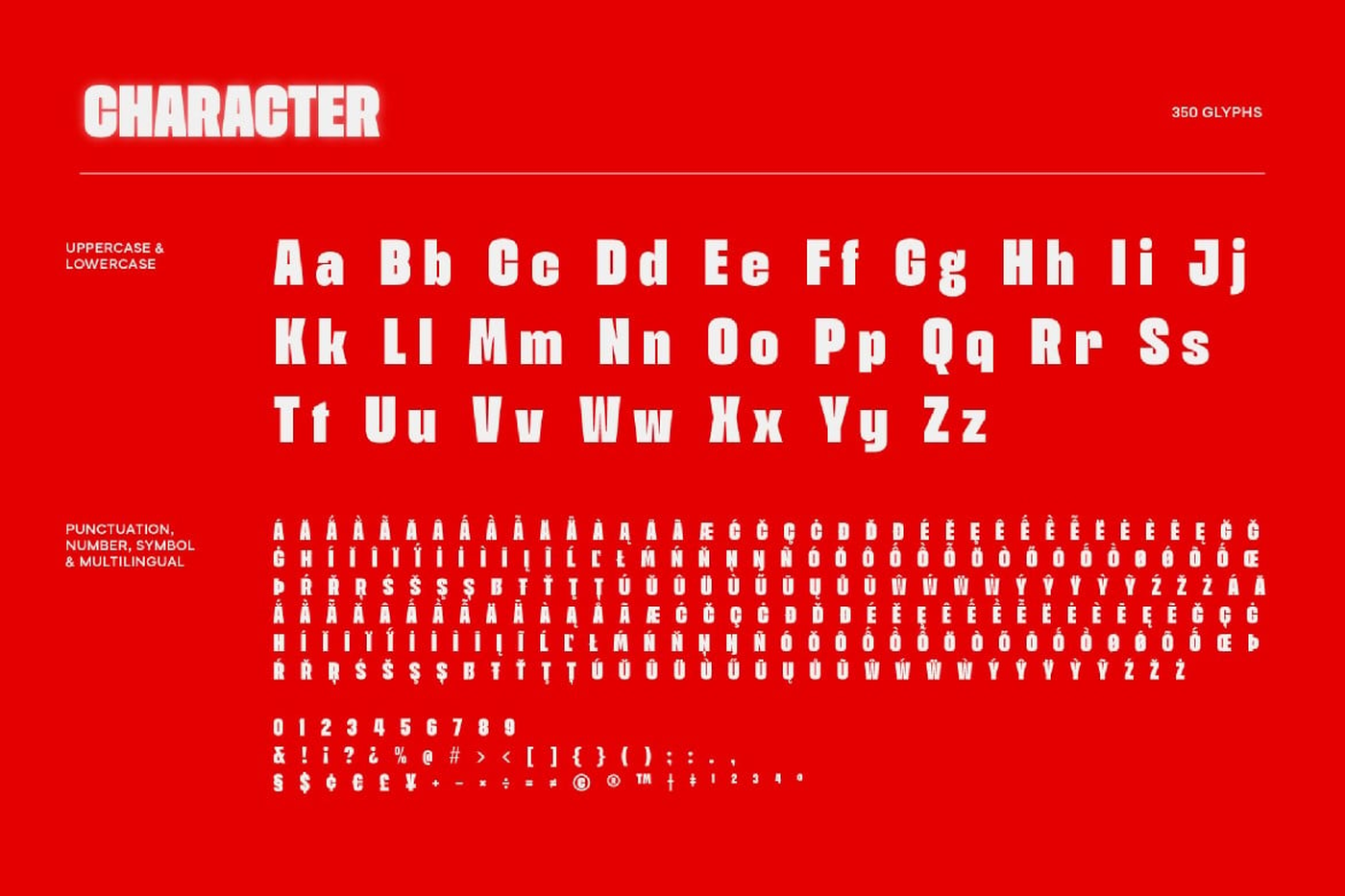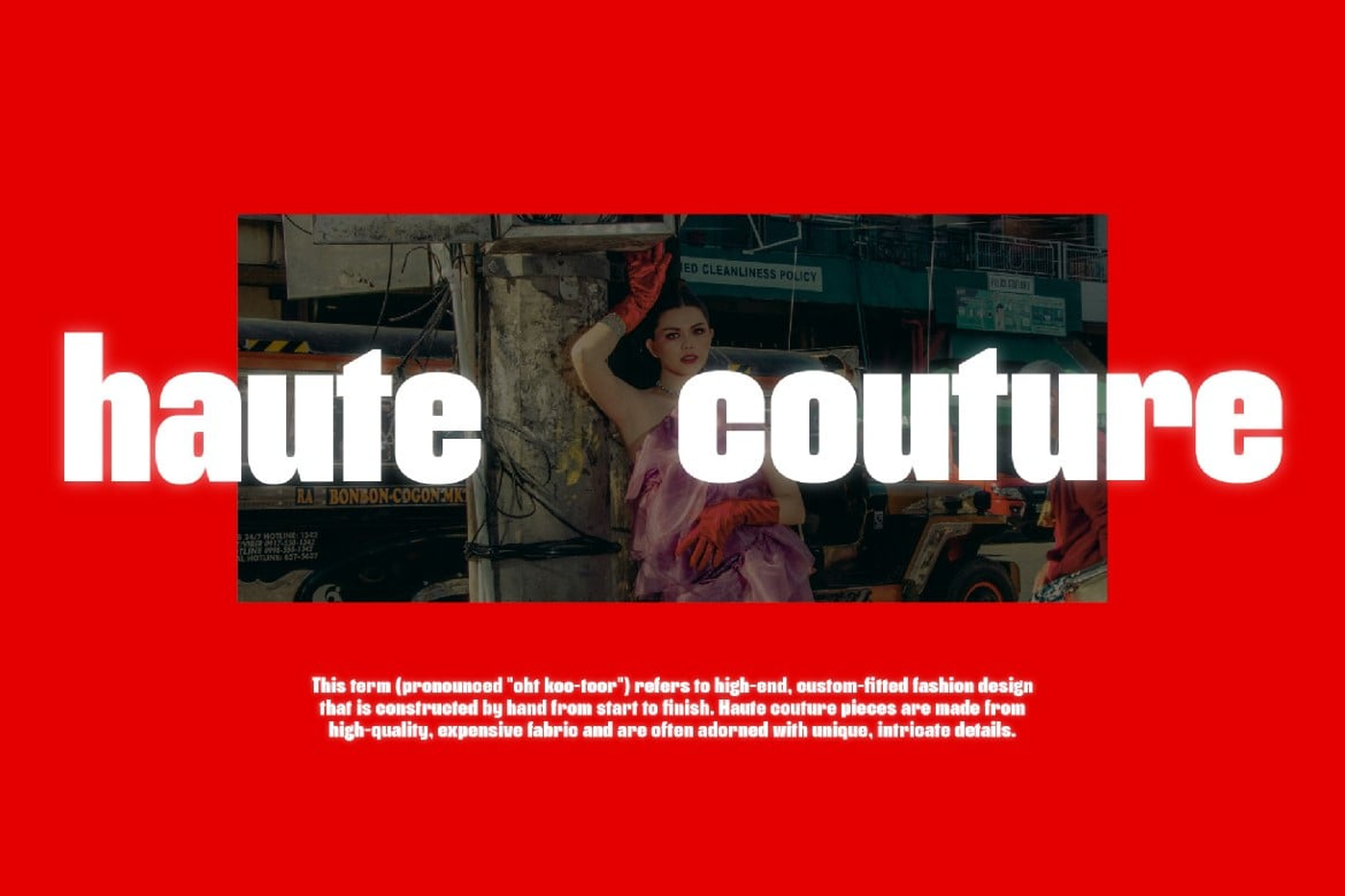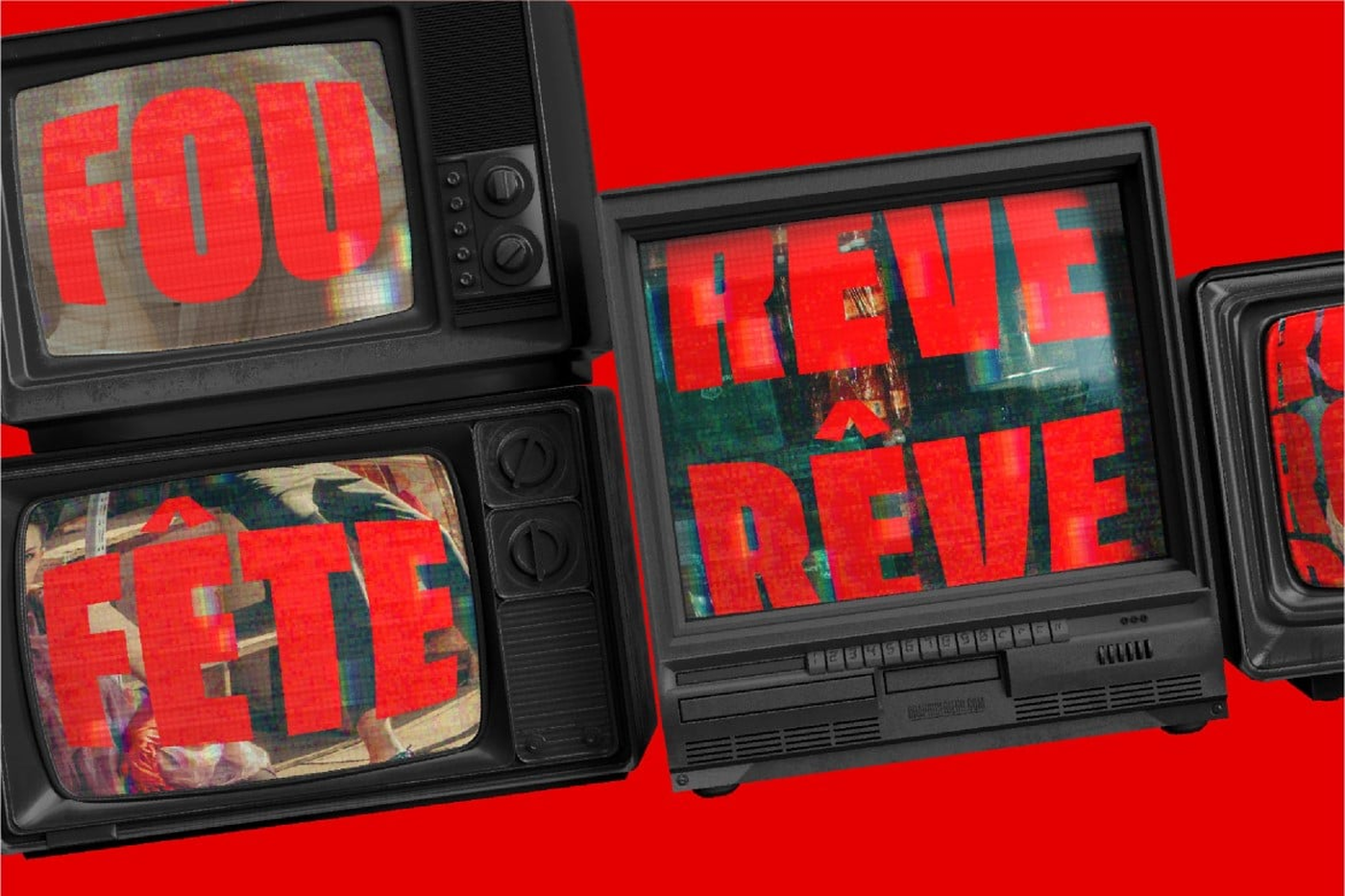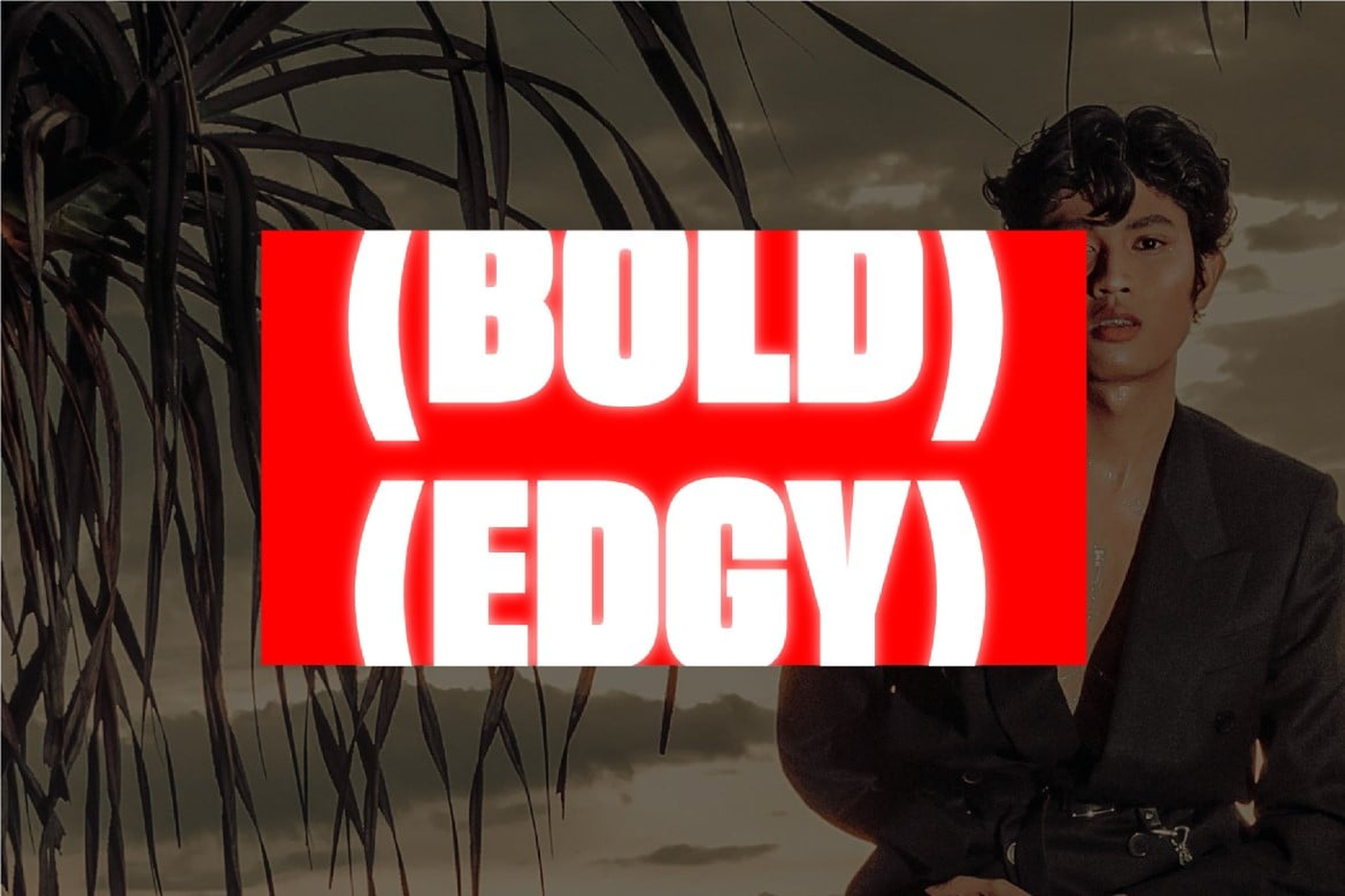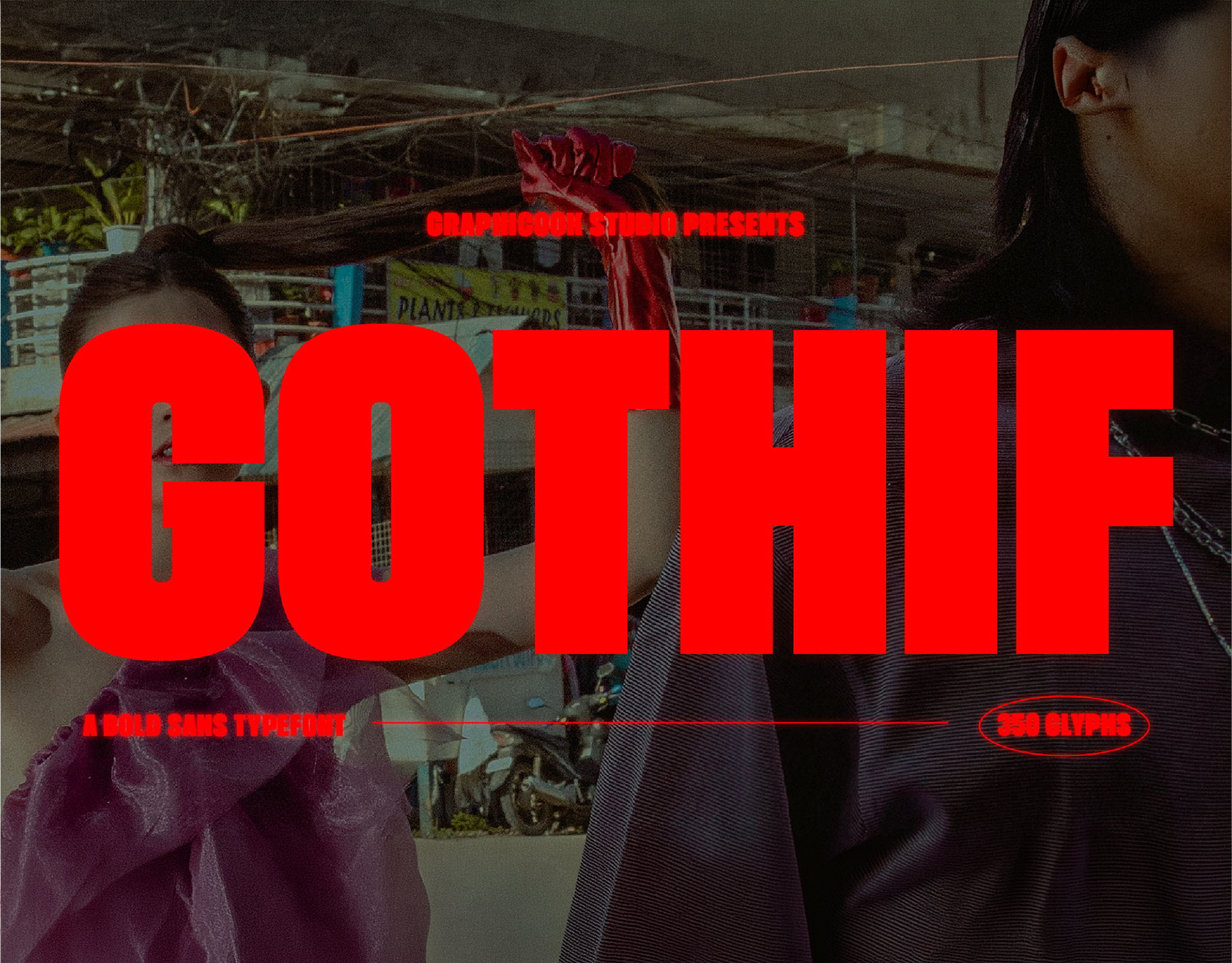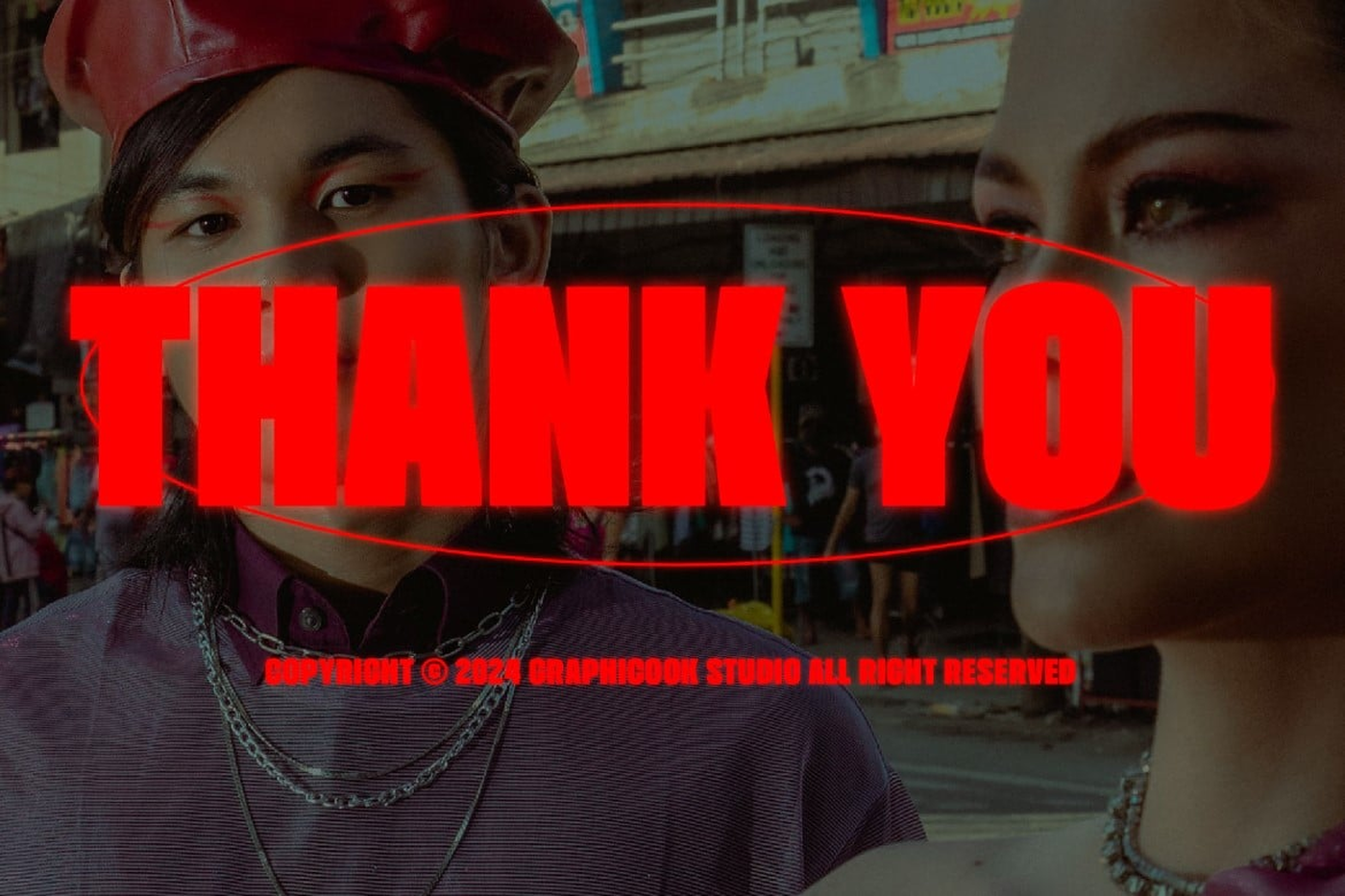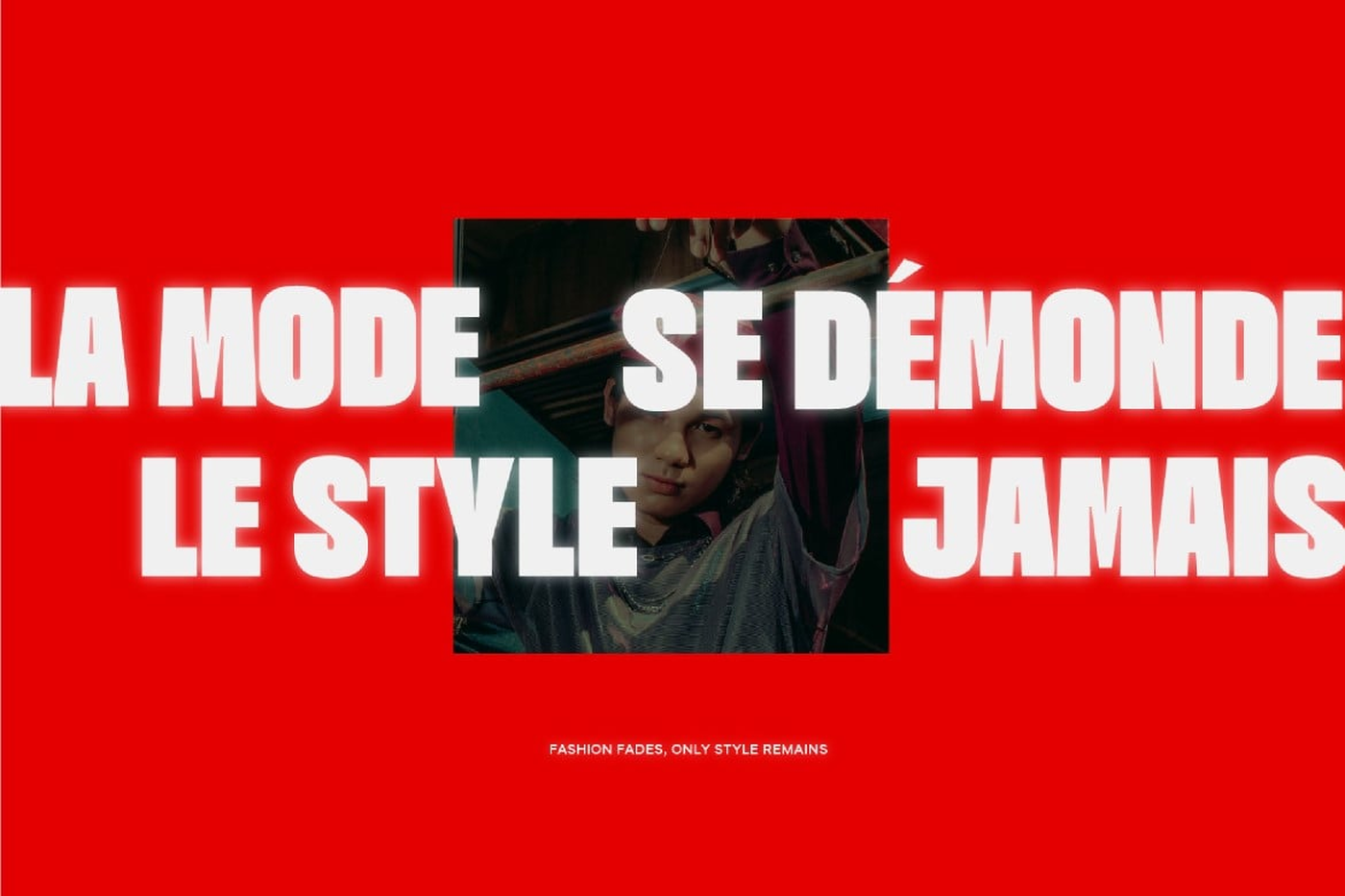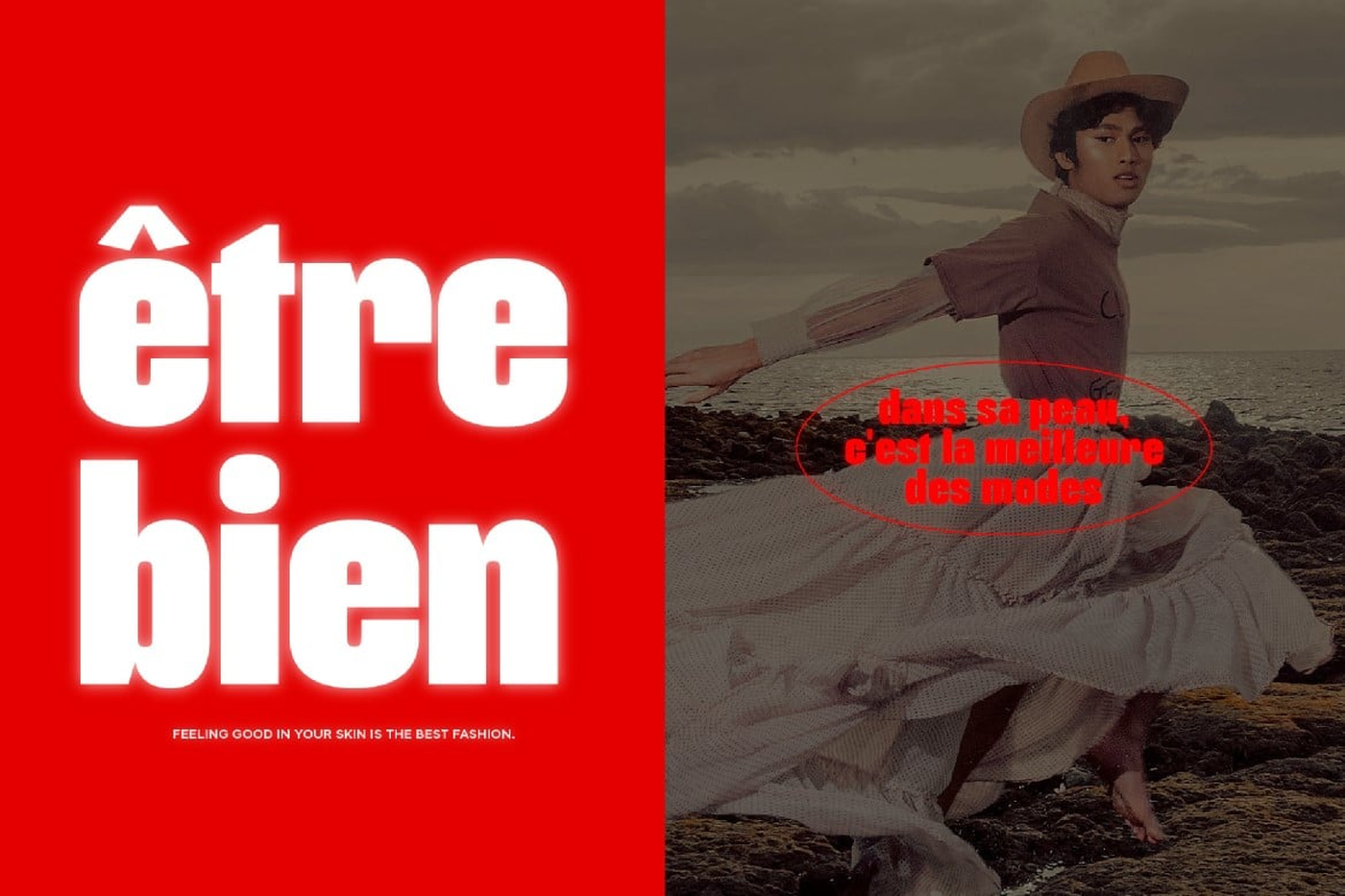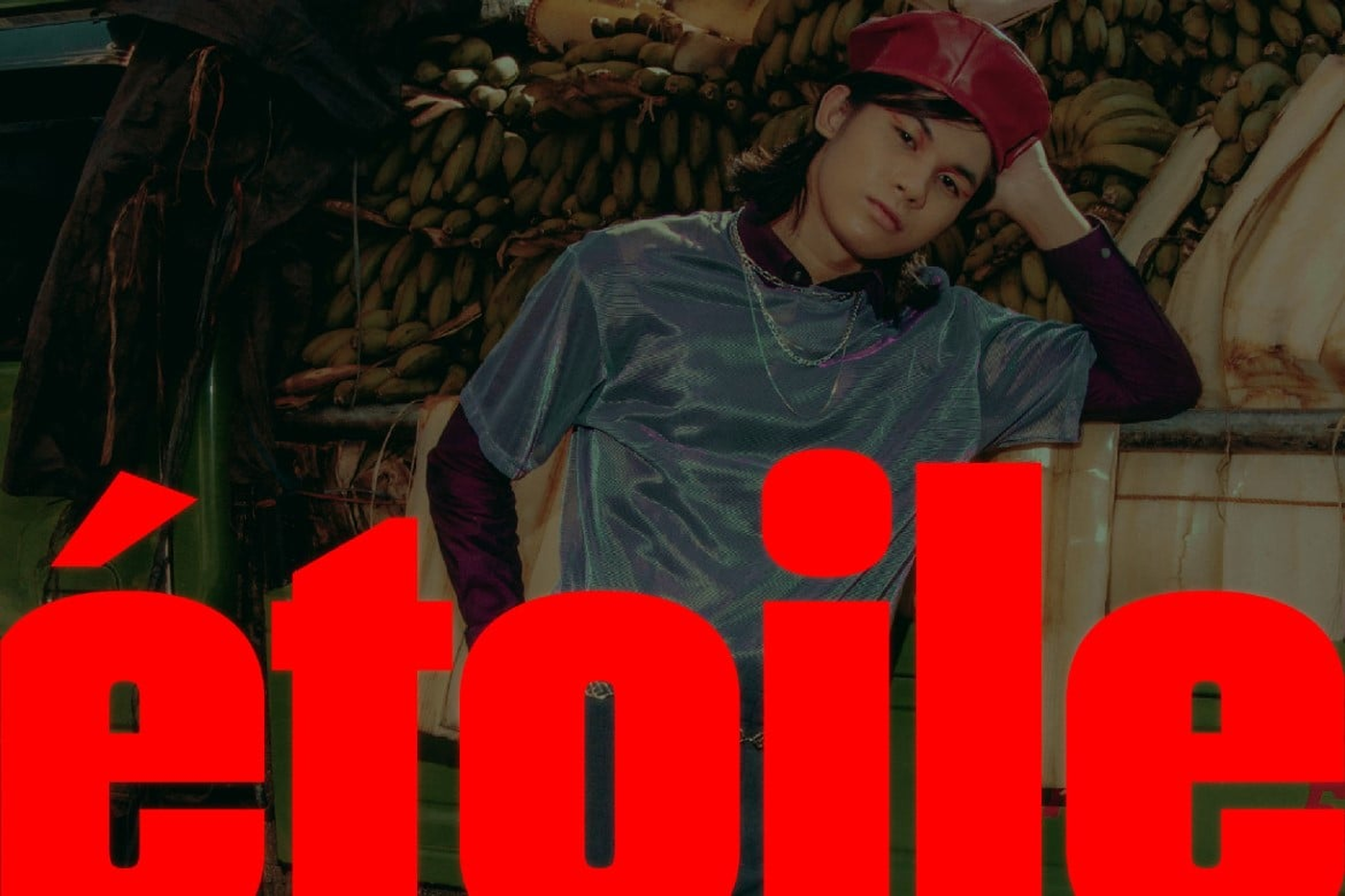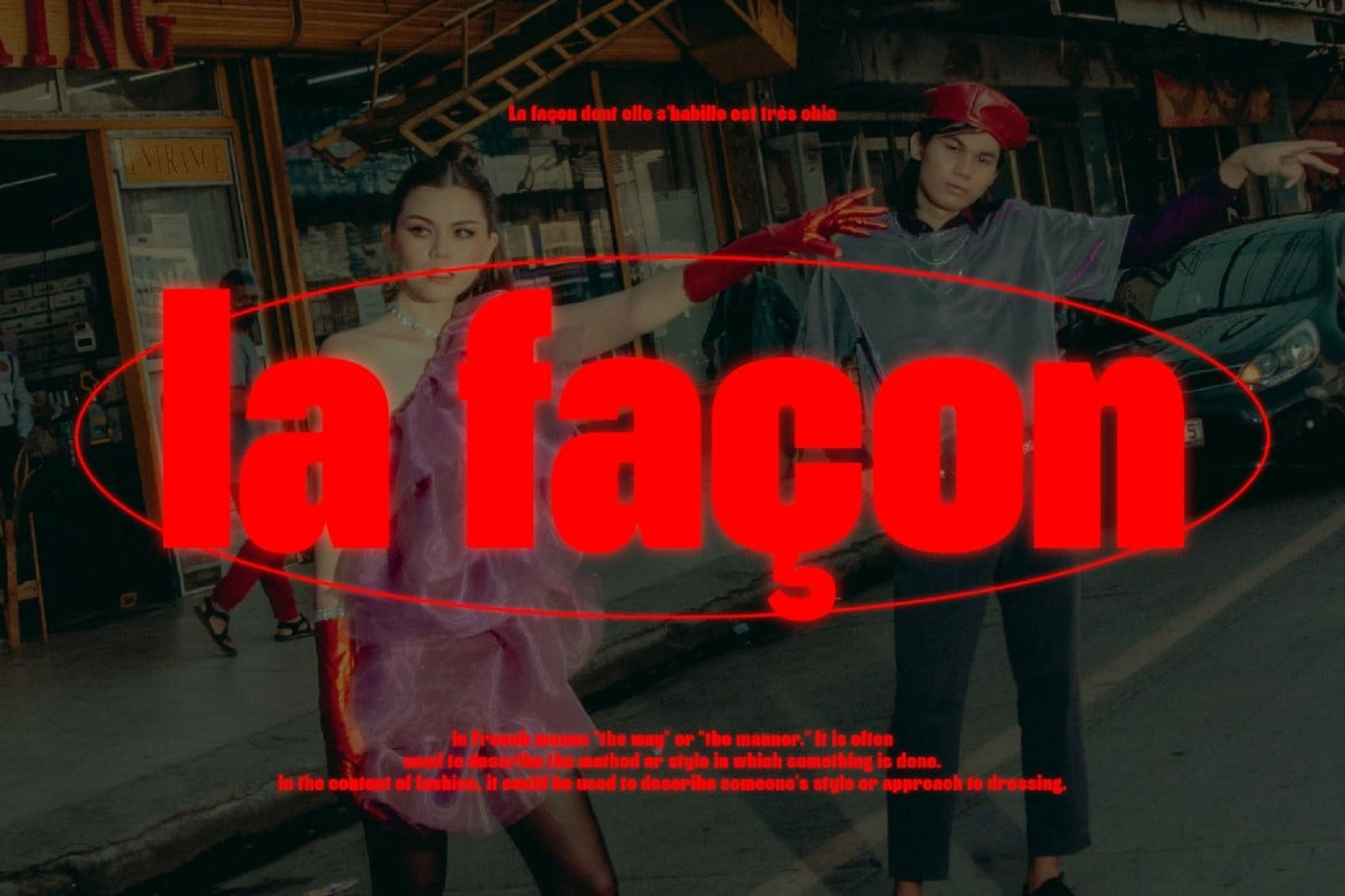
Gothif - Bold Sans Font
Gothif is a bold sans-serif font that gives a gothic style. It is ideal for headlines, packaging, posters, and any design that requires bold font
Font: Gothif